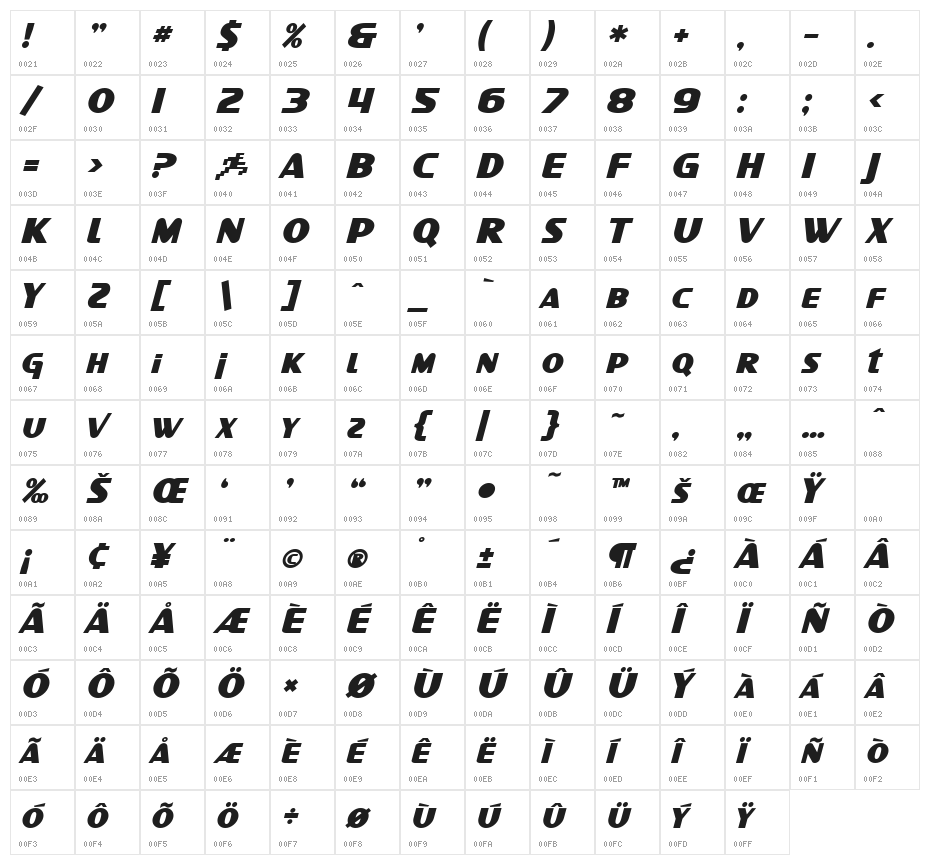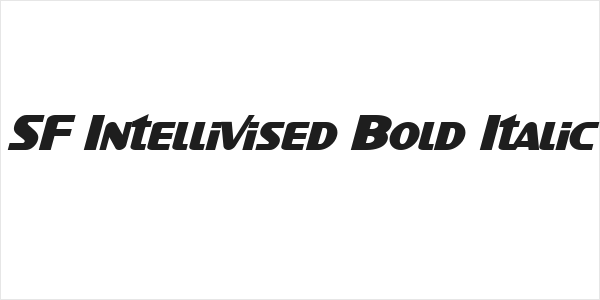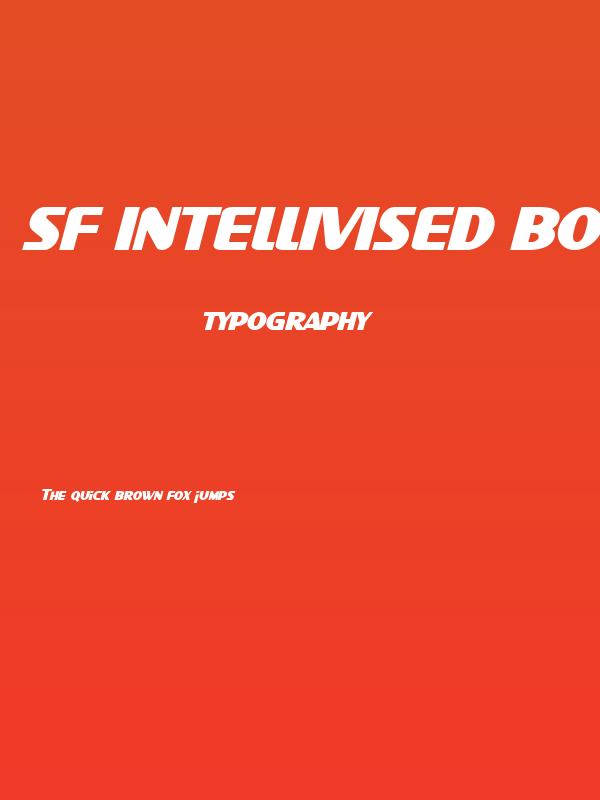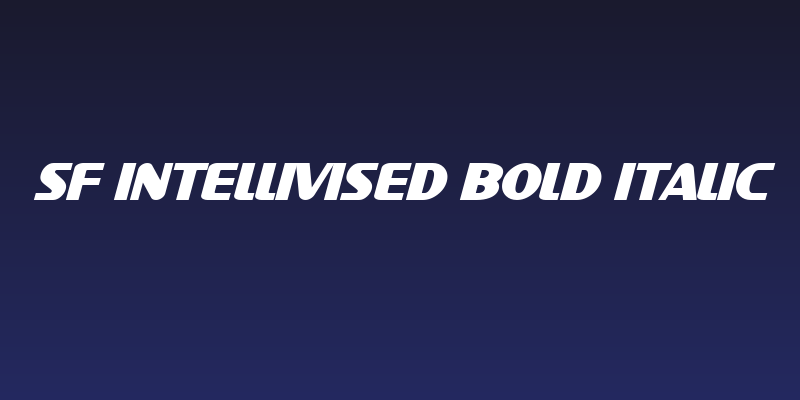
SF Intellivised Bold Italic Font
SF Intellivised Bold Italic Description
This font features a bold and dynamic style with a distinct italic slant, giving it a sense of motion and energy. The characters are robust and impactful, making them highly legible and attention-grabbing. The uppercase and lowercase letters maintain a consistent design, with sharp angles and smooth curves that create a modern and sleek appearance. The numerals and special characters are equally bold, ensuring uniformity across all text elements. This font is ideal for projects that require a strong visual presence.
| Proposed Projects | Ideal for branding, advertising, sports team logos, and dynamic headlines. |